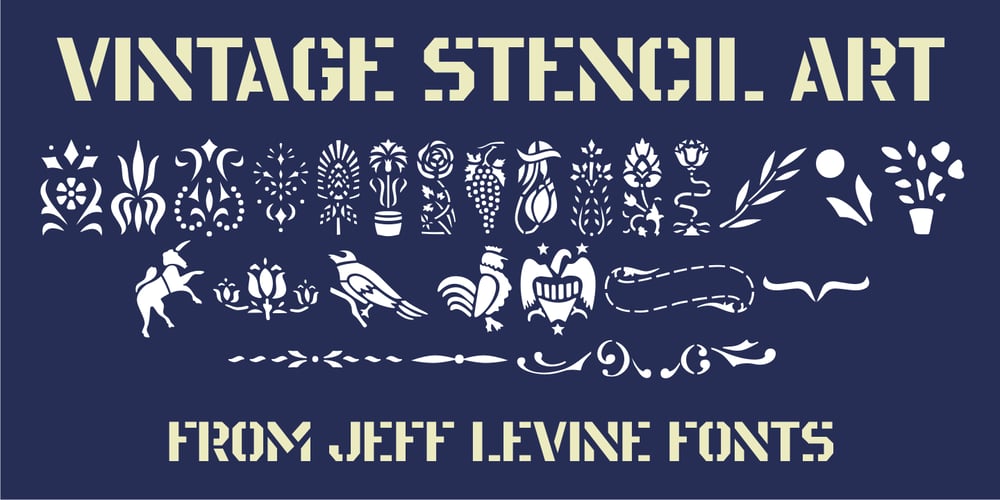
Vintage Stencil Art JNL
Vintage Stencil Art JNL font
Vintage Stencil Art JNL Font Family was designed by Jeff Levine and published by Jeff Levine. Vintage Stencil Art JNL contains 1 styles and family package options. Vintage Stencil Art JNL collects another twenty-six charming designs, all re-drawn from antique and vintage stencil sources. These images make for the perfect embellishment to typographic projects which utilize stencil type, or the designs can be applied as decorative thematic backgrounds (such as a flower show, nature walks and so forth). For reproduction as saleable commercial products such as stencils, decals, stickers, transfers, etc. please refer to the terms and conditions which are clearly stated in the font’s End User License Agreement regarding specialized licensing.